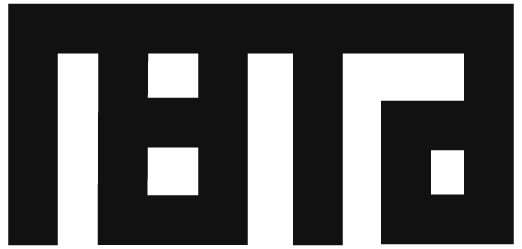
FSL Lilly is a bold and modern display font with a playful flair, perfect for eye-catching headlines, logos, and creative projects. Versatile and highly readable in both print and digital, it adds a dynamic edge to any design. Available as a Malayalam ASCII font in FML format for diverse creative use.